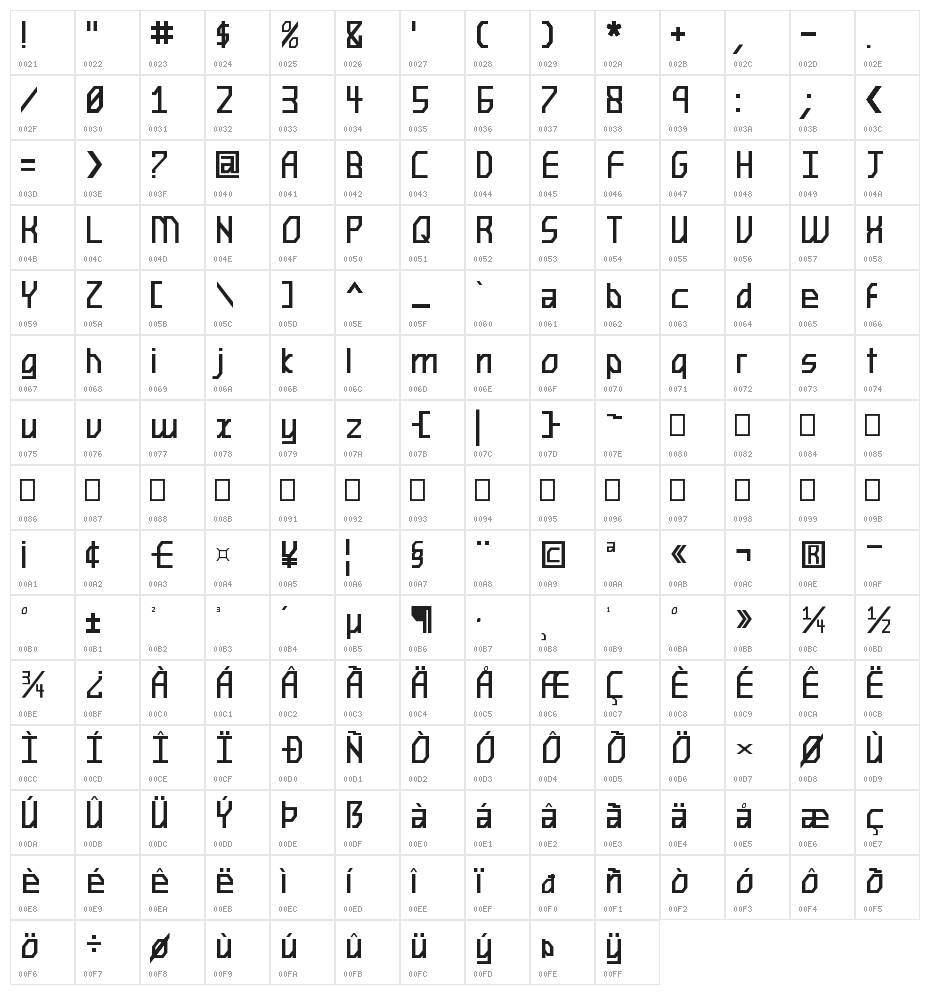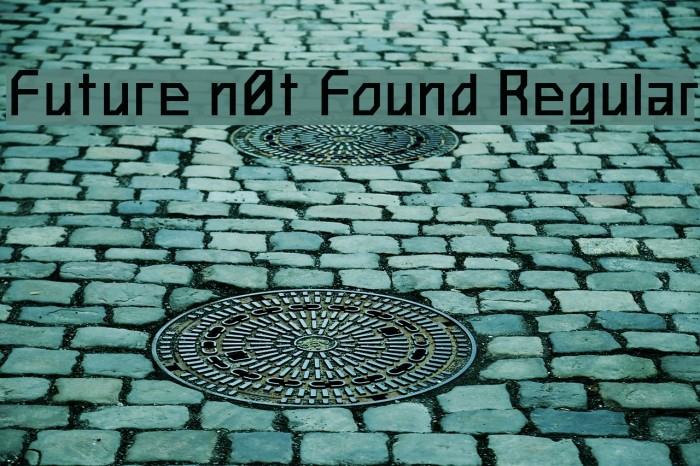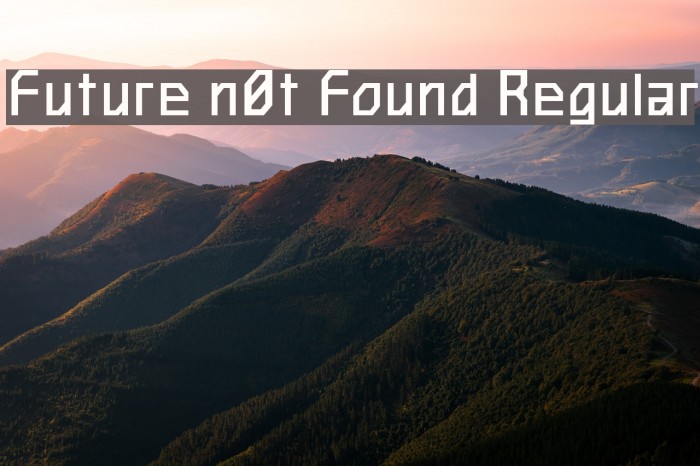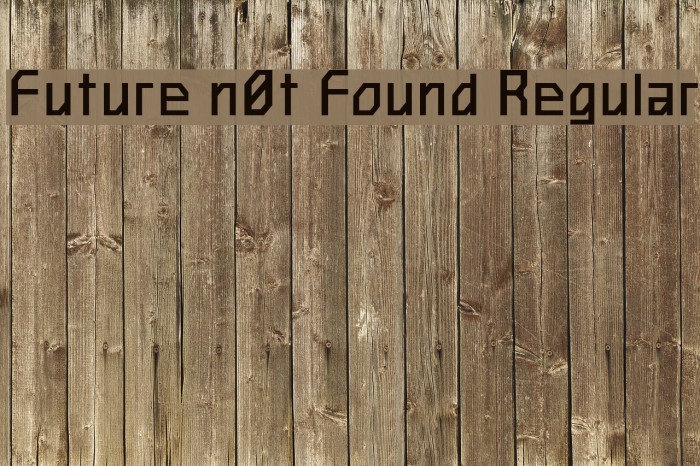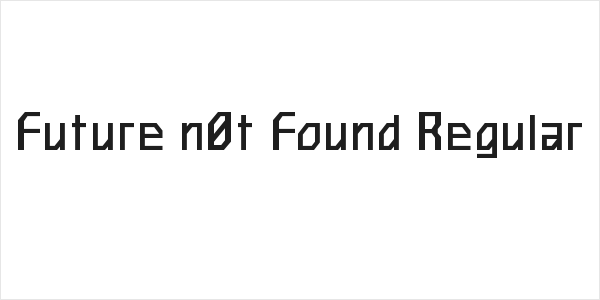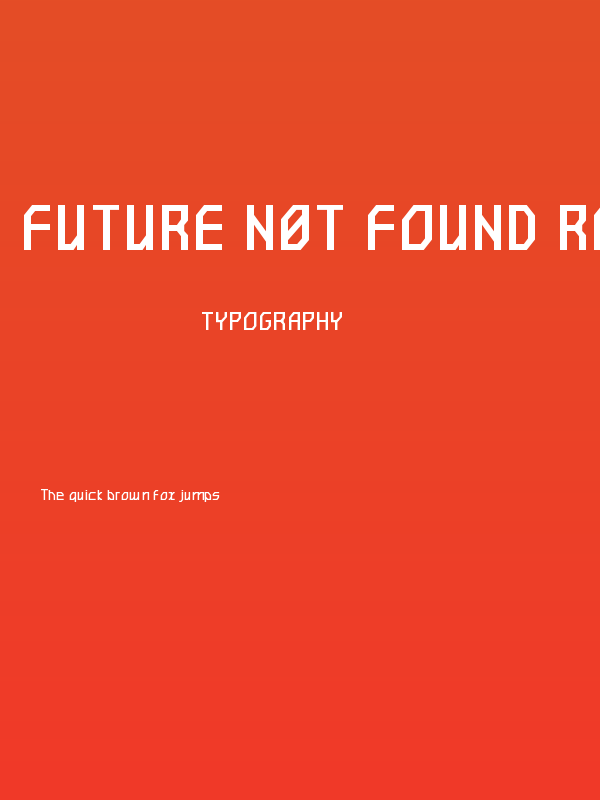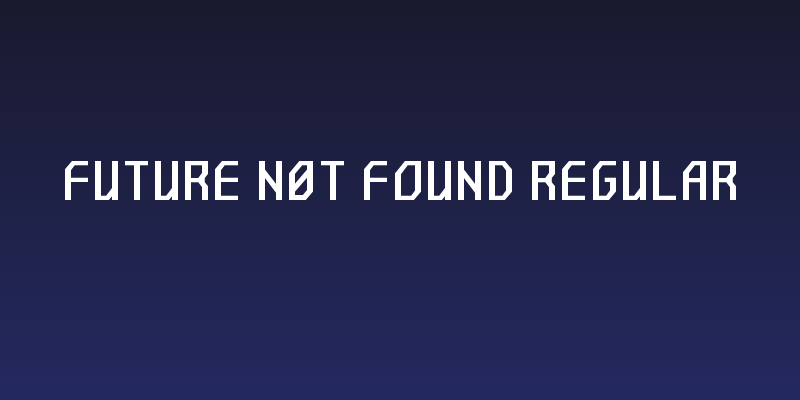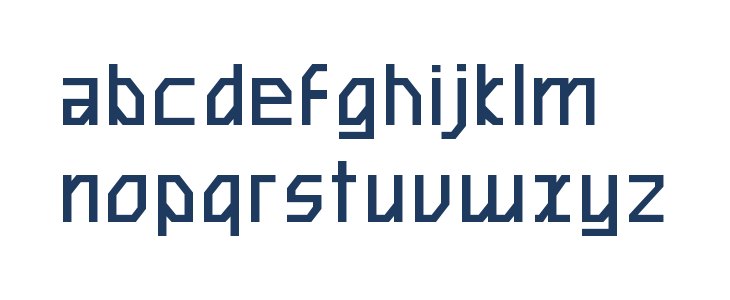
Future n0t Found Regular Font
Future n0t Found Regular Description
This font features a futuristic and geometric design, characterized by its angular and blocky letterforms. The uppercase and lowercase letters maintain a consistent style, with sharp edges and a uniform stroke width that gives it a digital or tech-inspired appearance. The numbers and special characters follow the same design principles, ensuring a cohesive look across all elements. The font's structure is clean and precise, making it suitable for modern and innovative design projects. Its unique style is eye-catching and can be used to convey a sense of technology and forward-thinking.
| Proposed Projects | Ideal for tech branding, digital interfaces, video game design, and futuristic-themed posters. |